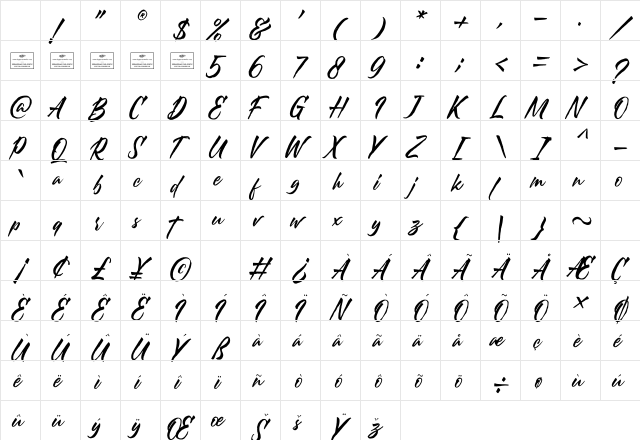
Complete Untouched Regular glyph index. Displaying only characters natively supported by Untouched Regular font.
Untouched is a composed and adaptable typeface that performs quietly and consistently across a wide range of design contexts.